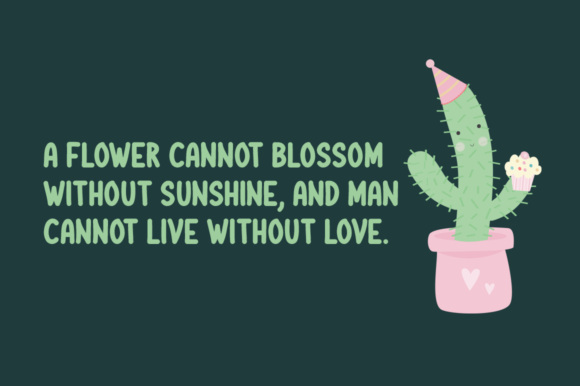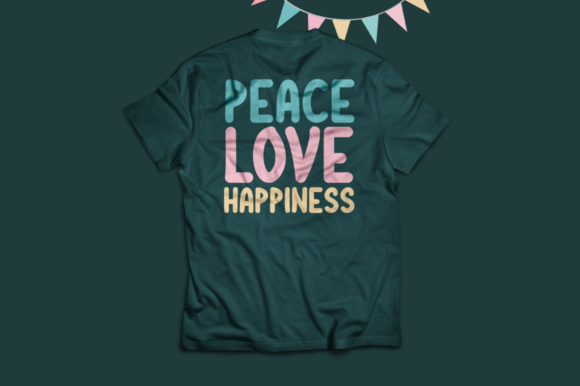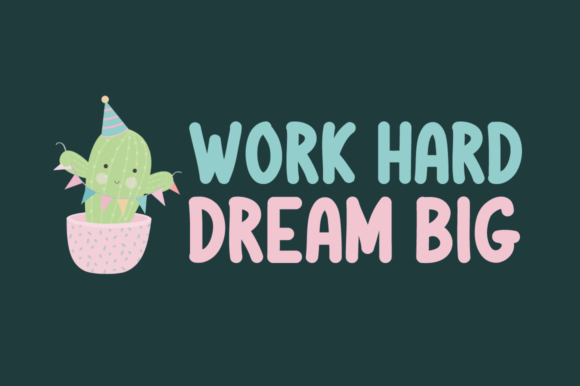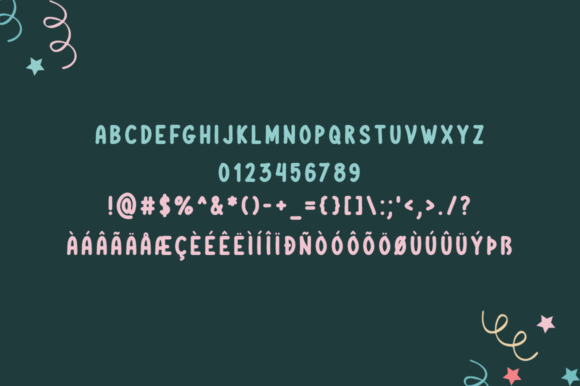
The Cactus Font that Stole My Heart: A Deep Dive into Funny Cactus
I still remember the design project that led me to discover the Funny Cactus font. I was working on a whimsical garden-themed branding project, and I was on the hunt for a font that would capture the playful, yet elegant essence of the brand. After hours of scrolling through font libraries and testing out different options, I stumbled upon Funny Cactus – and it was love at first sight! 💕
This adorable font has a unique charm that’s hard to resist. With its botanical and sweet vibe, it’s perfect for design projects that need a touch of nature. In this article, I’ll share my honest review of Funny Cactus, provide a practical guide on how to use it, and explore similar fonts that you might enjoy.
My Honest Review of Funny Cactus
- ✨ Adorable and playful design that’s perfect for creative projects
- ✅ Unique charm that sets it apart from other fonts
- 🌿 Botanical and sweet vibe that’s ideal for nature-inspired designs
- 💻 Highly legible, even at small font sizes
- 🤔 Limited character set, which may not be suitable for projects that require a wide range of characters
- ⚠️ May not be the best choice for formal or professional designs, as it’s quite playful
The Story Behind Funny Cactus
Funny Cactus was designed by a talented font creator who wanted to capture the whimsical essence of the natural world. Inspired by the quirky charm of cacti and succulents, the designer crafted a font that’s both playful and elegant. With its unique character set and adorable design, Funny Cactus has become a favorite among designers and crafters.
Q: What type of projects is Funny Cactus best suited for?
A: Funny Cactus is perfect for design projects that need a touch of nature, such as garden-themed branding, packaging, and stationery.
Q: Is Funny Cactus available in different font weights?
A: Unfortunately, Funny Cactus has limited font weights, but you can experiment with different font sizes and styles to create a unique look.